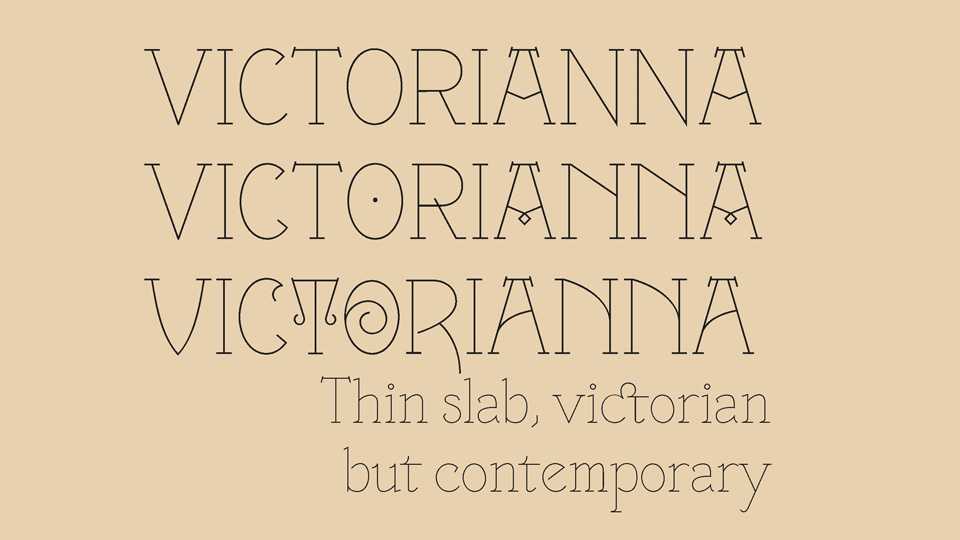
Download Victorianna typeface, a thin Roman & Italic font family, inspired by english victorian types. Thin Roman includes 3 titling styles on caps, ligatures on lower cases. Thin Italic contains many ligatures on lower cases.
Designer: Velvetyne TF